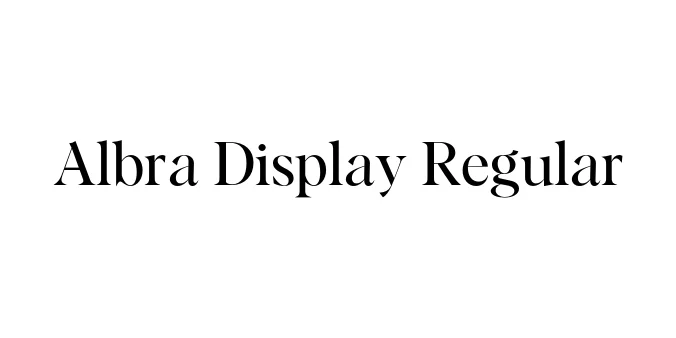
Albra Display Regular
Designed by BumBumType
Albra Display Regular is a sophisticated high-contrast serif typeface developed by the design studio BumBumType. It is meticulously crafted to serve as a centerpiece in the Albra font collection, specifically optimized for high-impact display purposes. The font features elegant, sharp serifs and a dramatic transition between thick and thin strokes, making it an ideal choice for large-scale applications such as mastheads, posters, and luxury identities.
Historically, the typeface draws inspiration from mid-20th-century editorial aesthetics, blending classical elegance with contemporary digital needs. Its refined proportions and rhythmic character provide a sense of timelessness while maintaining a modern edge. Since its release, Albra Display has become a staple for designers looking to inject a sense of premium quality and sophistication into digital and print media alike.
Albra Display Regular Best Uses
Excellent for luxury and lifestyle brand identities.
Perfect for high-end magazine headlines and layouts.
Ideal for elegant web headers and social media graphics.
Suited for posters, invitations, and premium book covers.